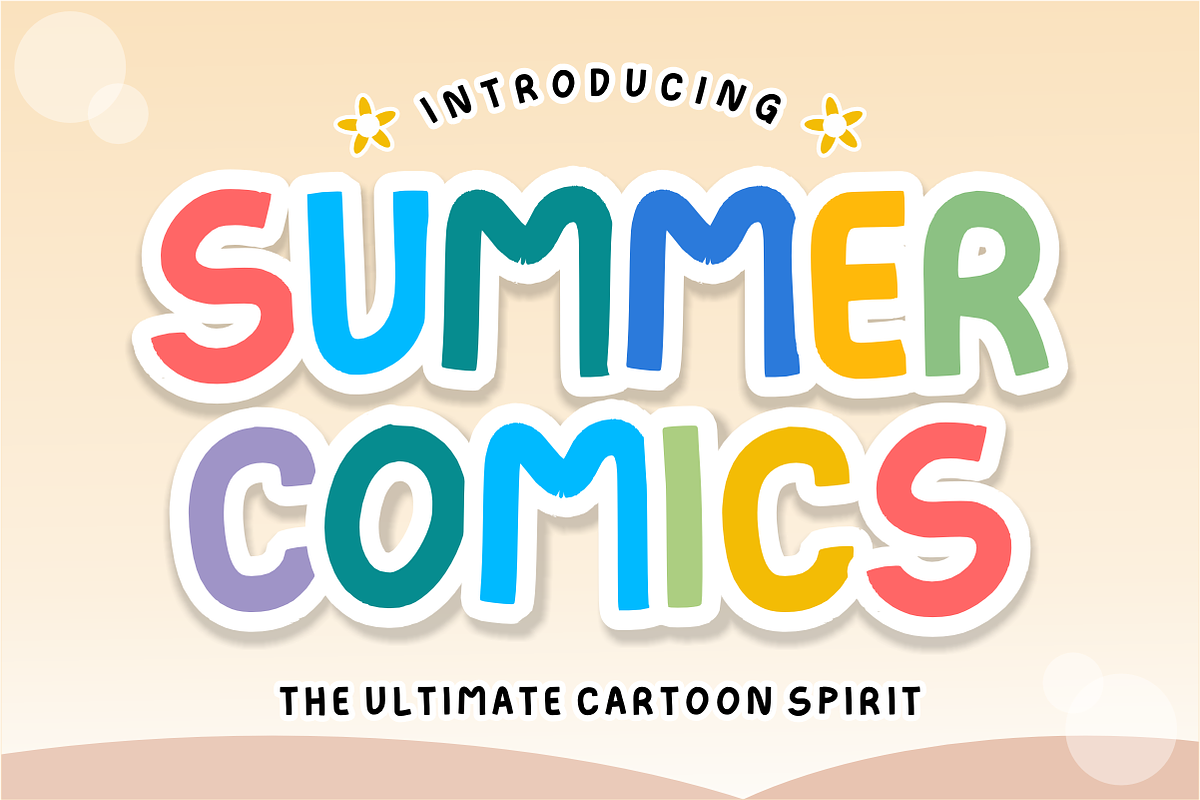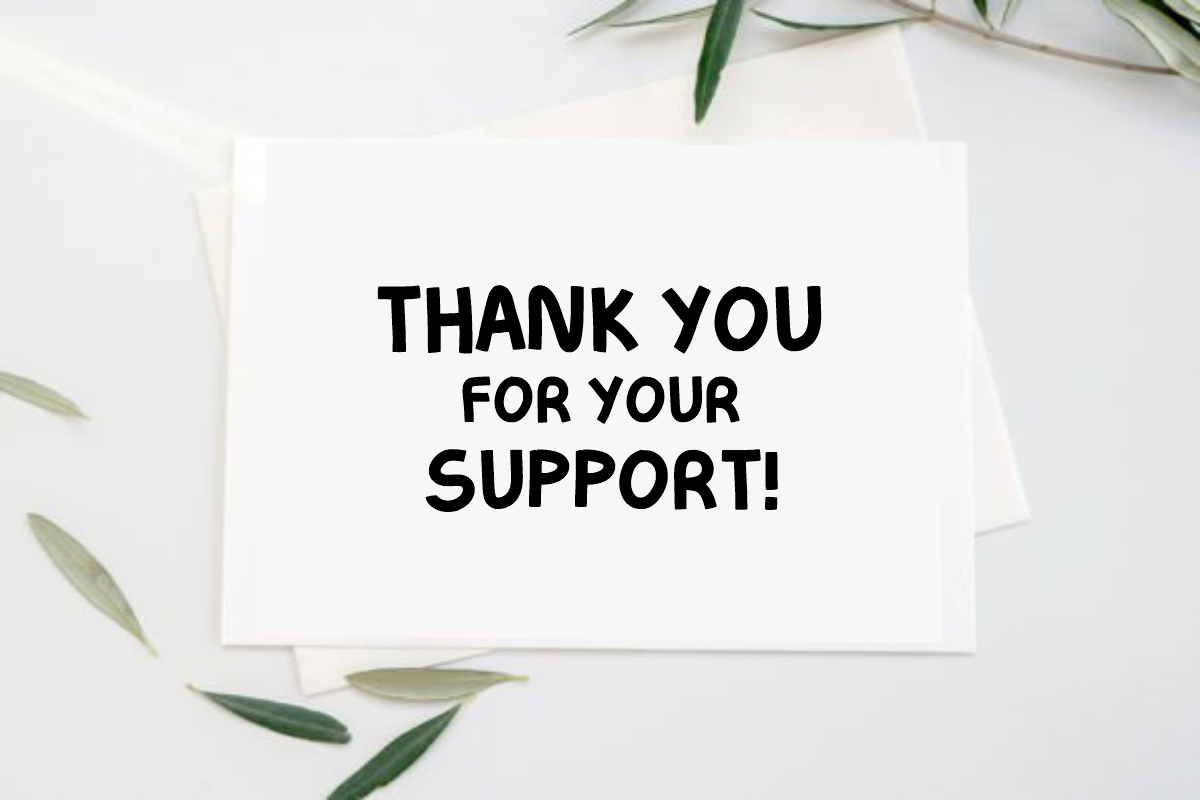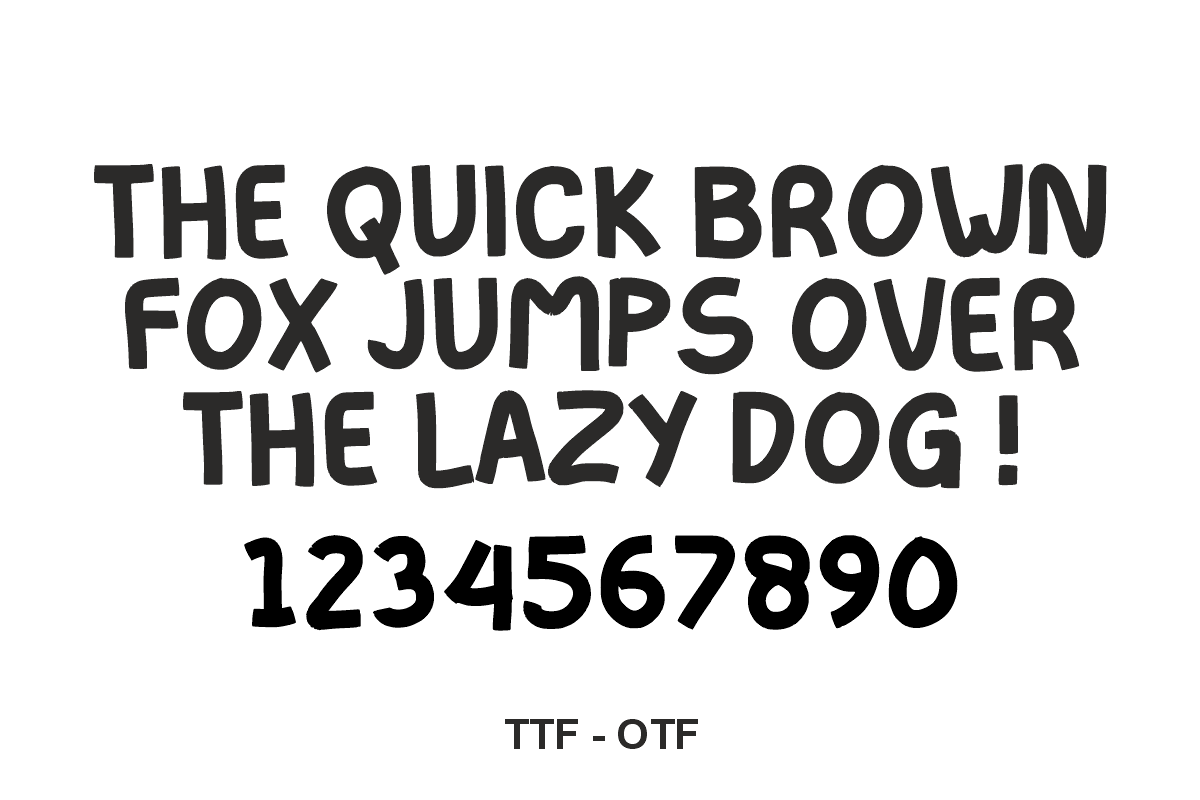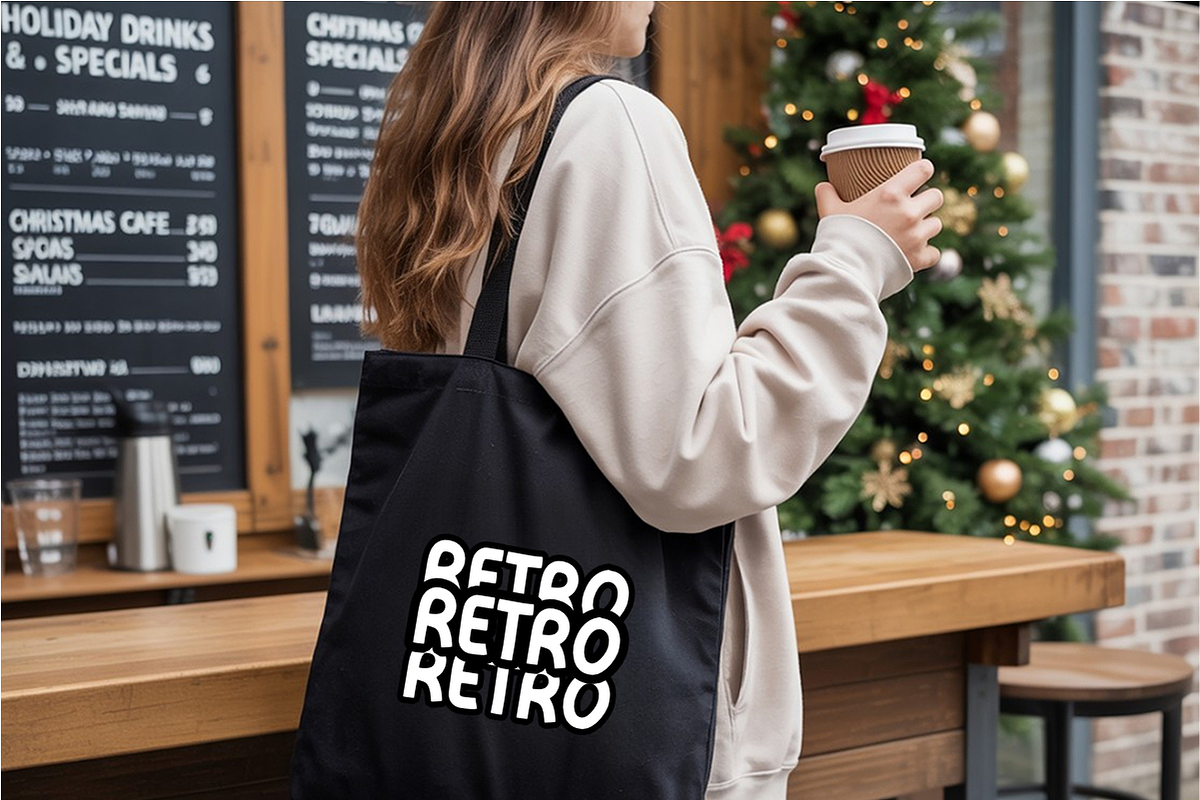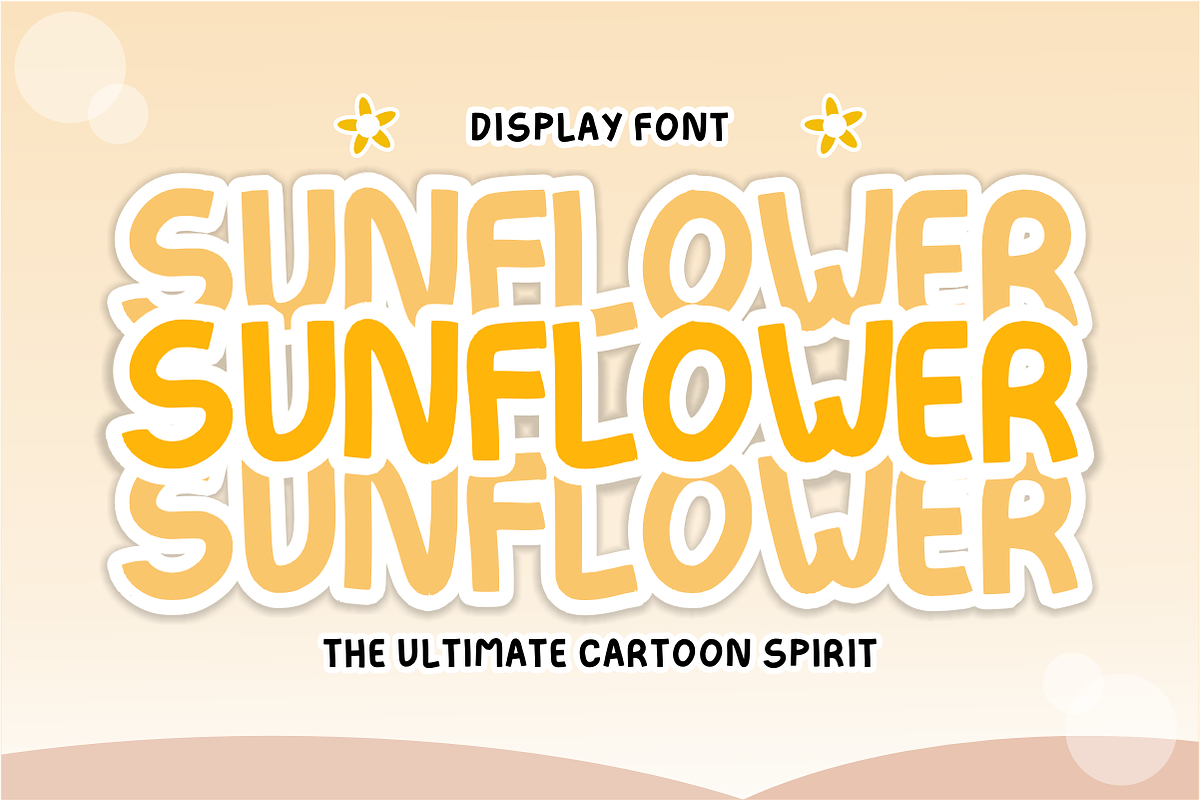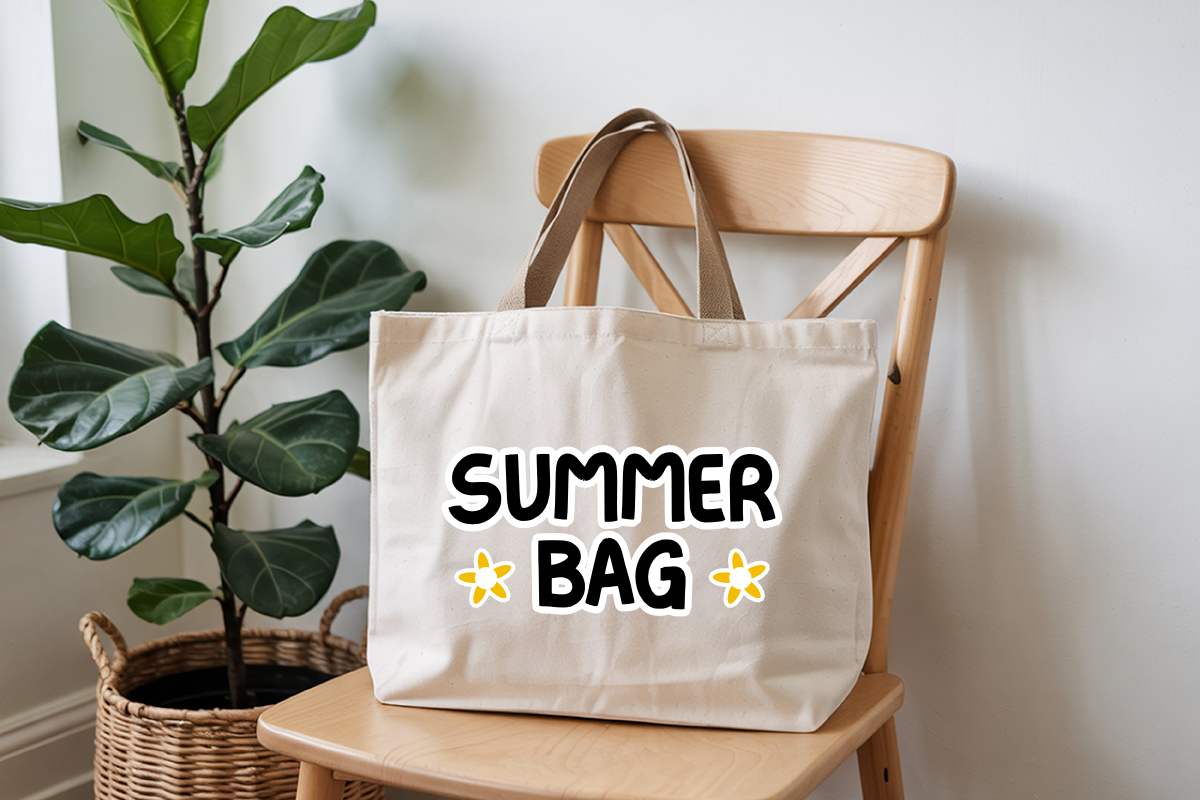
Summer Comics – Cartoon Display Font
Summer Comics – Playful & Bouncy Cartoon Display Font ☀️🎨
Bring maximum energy and a touch of whimsy to your creative projects!
Summer Comics is a vibrant, hand-drawn display font designed to capture the fun and adventurous spirit of classic cartoons. With its bold, rounded silhouette and slightly "bouncy" baseline, this font is the perfect solution for designers who need a typeface that feels friendly, energetic, and full of personality. Whether you are creating a comic strip, a children’s book, or catchy branding for a summer event, Summer Comics delivers a professional yet playful aesthetic that grabs attention instantly.
🌟 Why Summer Comics is a Must-Have:
Dynamic & Playful Silhouette: Each character is meticulously crafted with soft, rounded edges to ensure a friendly and approachable feel.
High Visibility: The extra-bold weight makes it an ideal choice for high-impact headlines that need to be readable from a distance.
Versatile Creative Soul: Effortlessly transitions from digital social media graphics to high-quality physical merchandise.
🎨 Perfect For:
📖 Children’s Books & Comics: Create engaging stories with a typeface that speaks to a youthful audience.
🎬 YouTube & Social Media: Perfect for bright thumbnails, high-energy overlays, and playful Instagram stories.
👕 Merchandise & Apparel: Stand out with bold graphics on kids' t-shirts, hoodies, and tote bags.
🏷️ Branding & Packaging: Ideal for snack brands, toy labels, and school supply packaging.
🏫 Educational Resources: Teachers and creators can use it for classroom posters, worksheets, and fun event flyers.
Uppercase Letters (A-Z): Bold and expressive characters.
Numbers & Essential Symbols: Full numeric set (0-9) and simple punctuation marks.